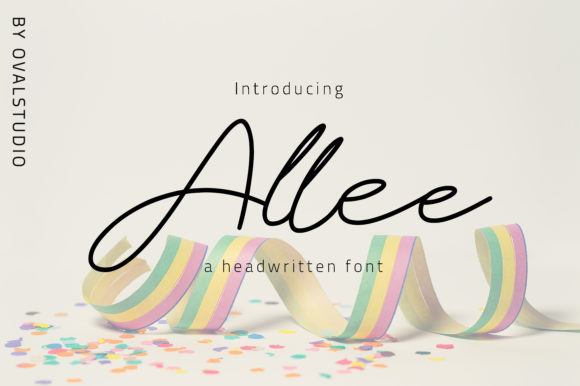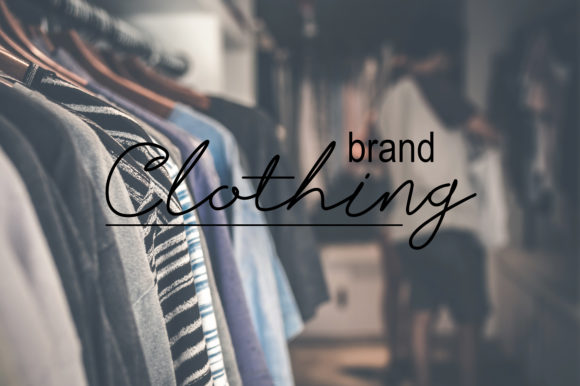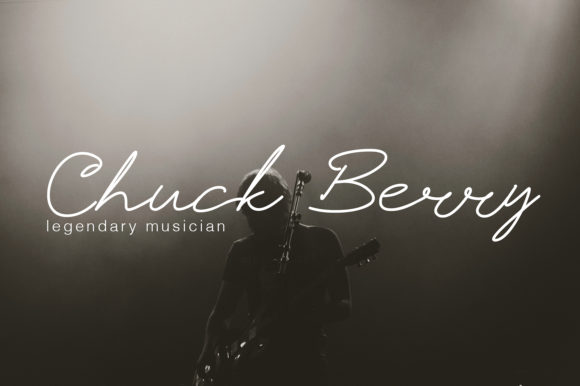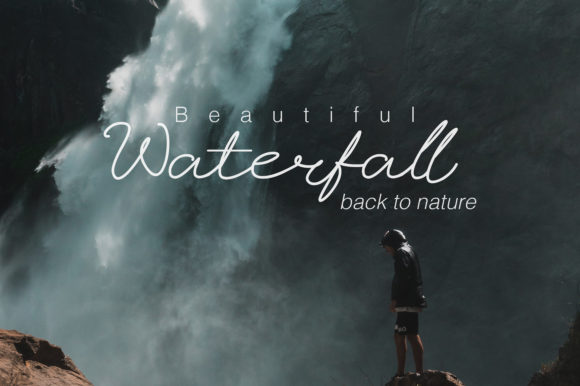
HomeScript FontsAlle Font Script Fonts Alle Font FacebookXPinterestWhatsApp Alle Font Poster 2 Alle Font Poster 3 Alle Font Poster 4 About Alle Font Alle is a fun and light script with an incredibly smooth style. DOWNLOAD NOW People also explored Bresrime Font Boldyguard Font Honeybee Font MountHill Font Everglow Script Font Duo Font Handraw Font Sabhar Font Khikmatin Font Wedding Vintage Font 355 0 TagsAlle Font Previous articleAgatha FontNext articleBest Signature Font LEAVE A REPLY Cancel reply Comment: Please enter your comment! Name:* Please enter your name here Email:* You have entered an incorrect email address! Please enter your email address here Website: Save my name, email, and website in this browser for the next time I comment. Personal Use Free Jelly Fish Personal Use Free Read more about this font Predators Personal Use Free Read more about this font Squealer Personal Use Free Read more about this font Dream Personal Use Free Read more about this font BLOG Using Fonts in Digital Marketing: Tips to Strengthen Your Brand Identity In the realm of digital marketing, every visual element plays a crucial role in shaping a brand's identity, and fonts are no exception. The... Best Fonts for YouTube Videos: Make Your Thumbnails Stand Out Top 10 Handwritten Fonts That Elevate Your Designs The 10 Best Handwriting Fonts to Add Personality to Your Designs